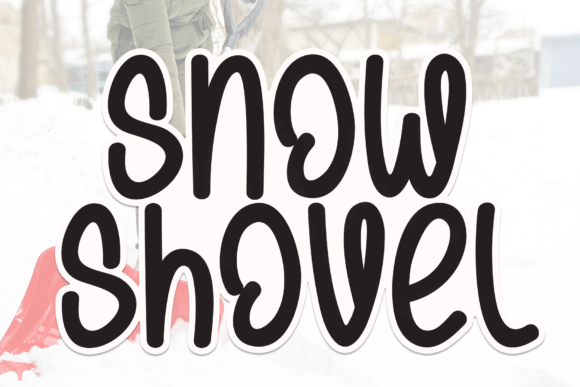
Snow Shovel Font: A Sweet and Friendly Handwritten Font for Your Designs
Are you looking for a font that can add a fun and playful touch to your designs? Look no further than the Snow Shovel font! This sweet and friendly handwritten font is perfect for creating wedding invitations, cards, and other designs that need a personal and whimsical touch. In this article, we’ll take a closer look at the Snow Shovel font, its features, and how you can use it to elevate your designs.
What is Snow Shovel Font?
Snow Shovel is a beautiful handwritten font that is designed to bring a touch of warmth and friendliness to your designs. It is a versatile font that can be used for a wide range of projects, from wedding invitations and cards to posters and social media graphics. The font features a unique and playful style that is sure to capture the attention of your audience.
Features of Snow Shovel Font
The Snow Shovel font has several features that make it a great choice for your designs. Some of its key features include:
- Cute and playful style: The Snow Shovel font has a unique and playful style that is sure to add a fun touch to your designs.
- Handwritten look: The font has a handwritten look that gives it a personal and whimsical feel.
- Versatile: The Snow Shovel font can be used for a wide range of projects, from wedding invitations and cards to posters and social media graphics.
- Easily readable: The font is easily readable, making it perfect for use in body text and headings.
Uses of Snow Shovel Font
The Snow Shovel font is a versatile font that can be used for a wide range of projects. Some of the most popular uses of the font include:
- Wedding invitations: The Snow Shovel font is perfect for creating beautiful and unique wedding invitations that will set the tone for your special day.
- Cards: The font can be used to create a wide range of cards, from birthday cards and holiday cards to thank you cards and more.
- Posters: The Snow Shovel font can be used to create eye-catching posters for events, promotions, and more.
- Social media graphics: The font can be used to create engaging social media graphics that will help you stand out from the crowd.
How to Use Snow Shovel Font
Using the Snow Shovel font is easy! Here are a few tips to get you started:
- Choose the right size: Choose a size that is easy to read, but also visually appealing.
- Pair with other fonts: The Snow Shovel font can be paired with other fonts to create a unique and visually appealing look.
- Experiment with colors: The font can be used with a wide range of colors, so don’t be afraid to experiment and find the perfect color for your design.
Benefits of Using Snow Shovel Font
There are many benefits to using the Snow Shovel font in your designs. Some of the most significant benefits include:
- Unique and playful style: The Snow Shovel font has a unique and playful style that will help your designs stand out from the crowd.
- Easily readable: The font is easily readable, making it perfect for use in body text and headings.
- Versatile: The Snow Shovel font can be used for a wide range of projects, from wedding invitations and cards to posters and social media graphics.
- Time-saving: The font can save you time and effort in creating designs, as it can be used to create a wide range of projects.
The Snow Shovel font is a sweet and friendly handwritten font that is perfect for adding a fun and playful touch to your designs. With its unique and playful style, easily readable text, and versatility, it’s a great choice for a wide range of projects. Whether you’re creating wedding invitations, cards, posters, or social media graphics, the Snow Shovel font is sure to help you create beautiful and engaging designs.
- Q: What is the Snow Shovel font?
A: The Snow Shovel font is a sweet and friendly handwritten font that is perfect for adding a fun and playful touch to your designs.
- Q: What can I use the Snow Shovel font for?
A: The Snow Shovel font can be used for a wide range of projects, from wedding invitations and cards to posters and social media graphics.
- Q: Is the Snow Shovel font easy to read?
A: Yes, the Snow Shovel font is easily readable, making it perfect for use in body text and headings.